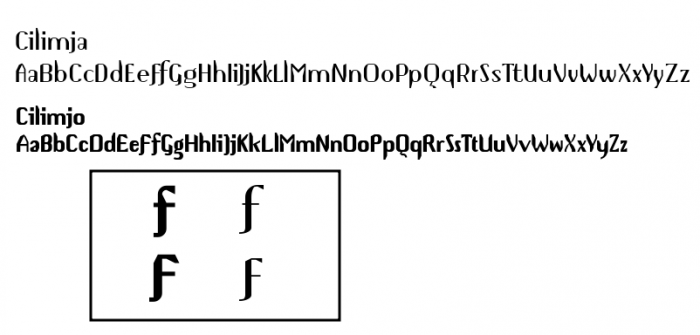
A delicately beautiful font.
Congratulations! FontStruct Staff have deemed your FontStruction worthy of special mention. “Cilimja” is now a Top Pick.